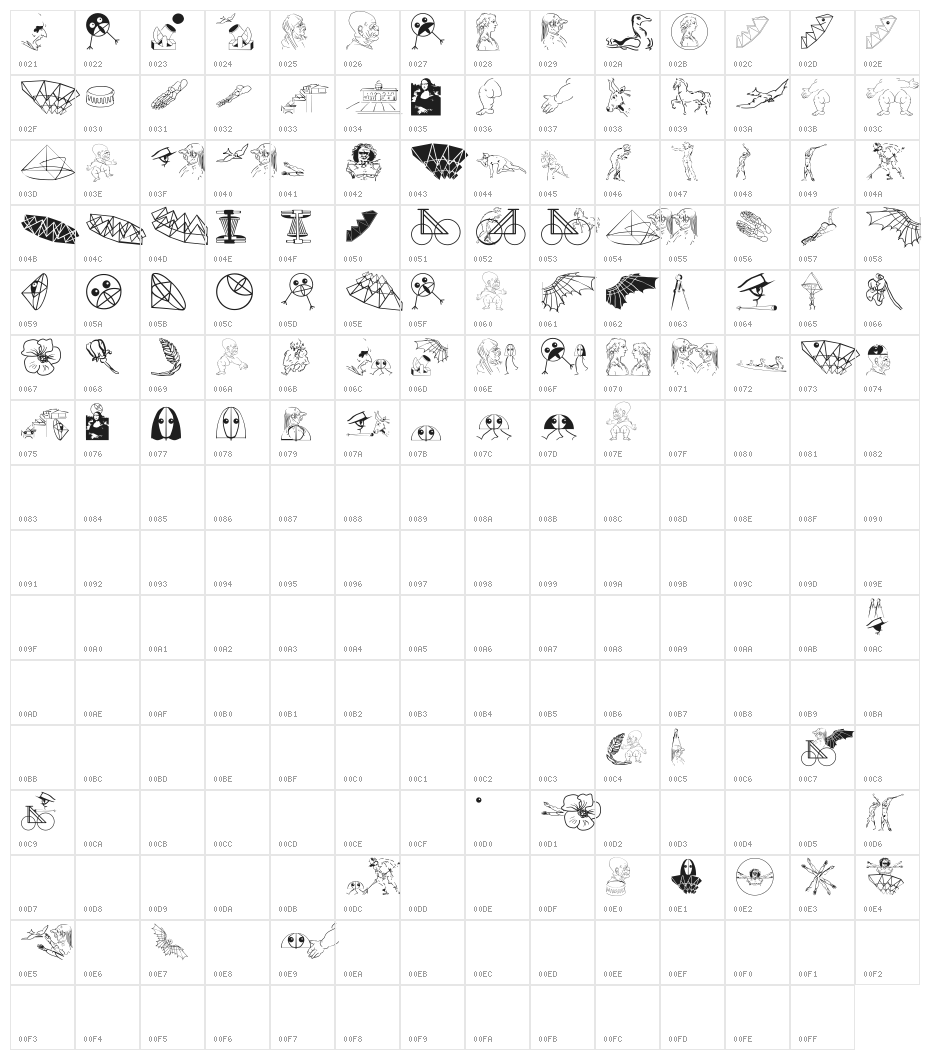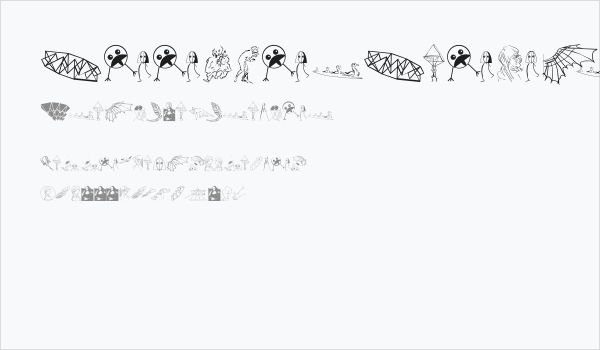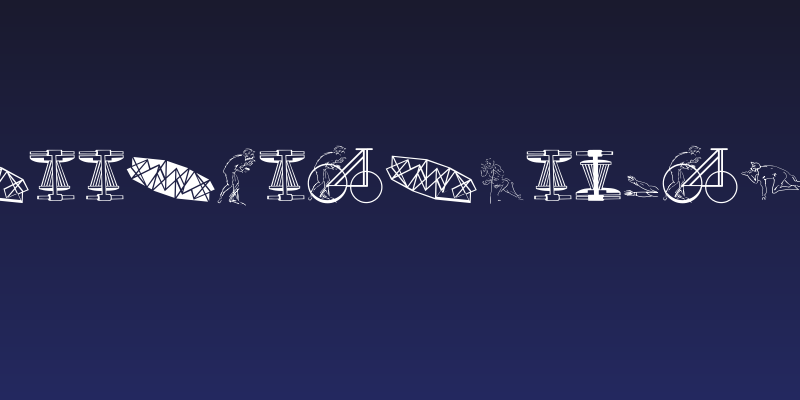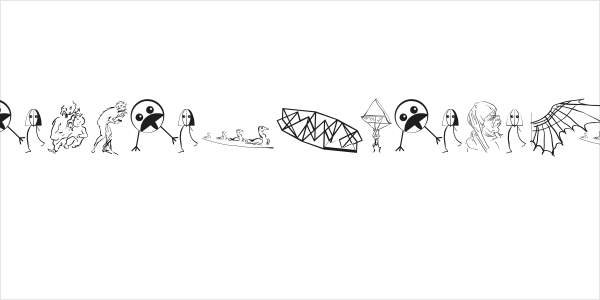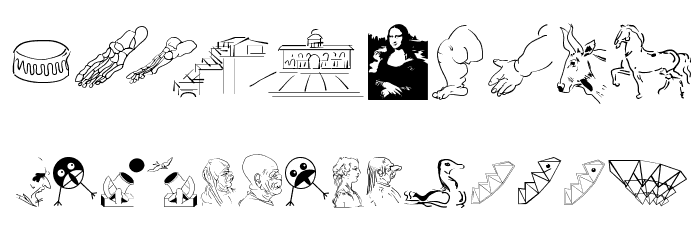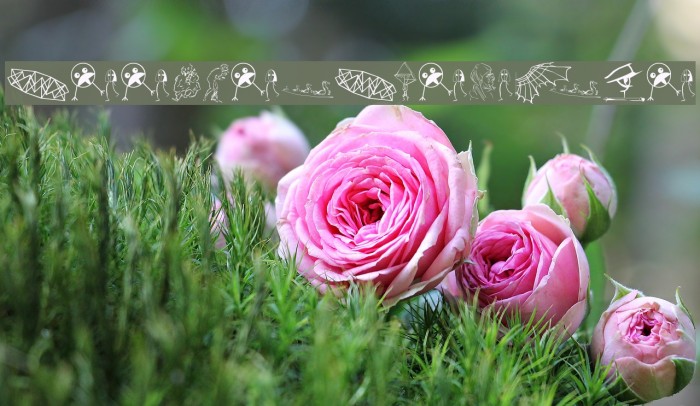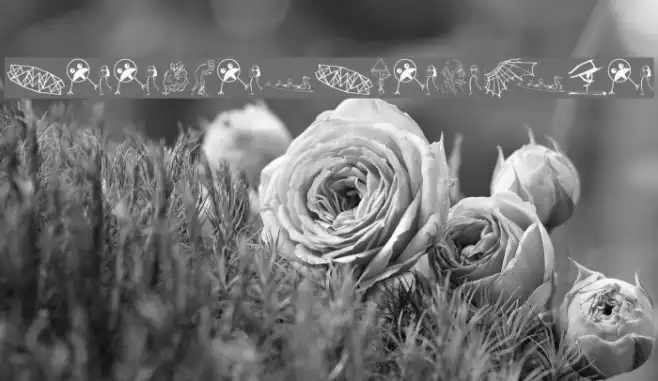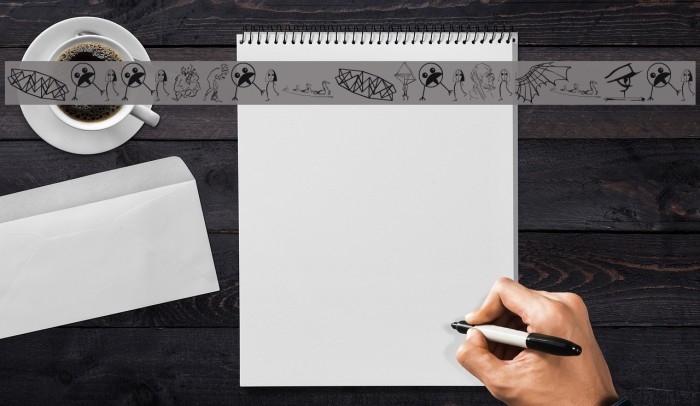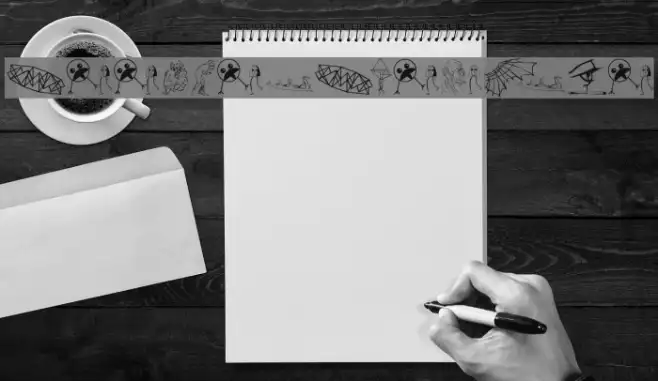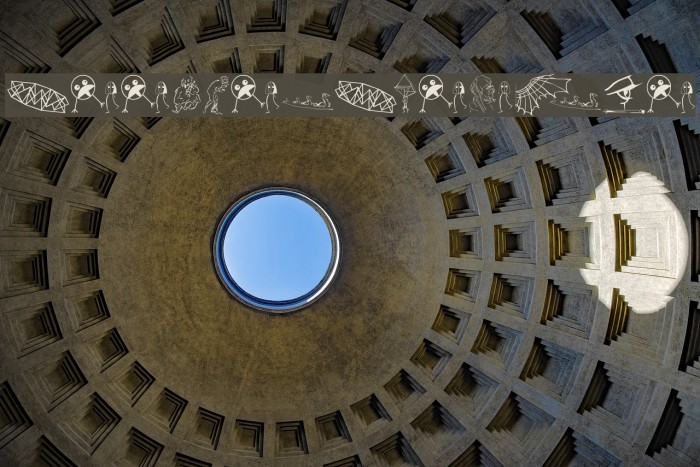
LookForLeonardo Font
LookForLeonardo Description
This is not a traditional font but rather a collection of illustrative symbols and sketches inspired by Leonardo da Vinci's works and inventions. The designs include various artistic and scientific elements such as human figures, mechanical devices, and nature-inspired motifs. Each symbol is intricately detailed, capturing the essence of da Vinci's diverse interests and genius. The collection is more of an artistic representation rather than a functional typeface, making it suitable for creative and thematic projects.
| Use Case | Artistic illustrations, themed projects, educational content. |
| Proposed Projects | Ideal for art projects, educational materials, themed designs, and creative illustrations that aim to evoke the spirit of Leonardo da Vinci's work. |